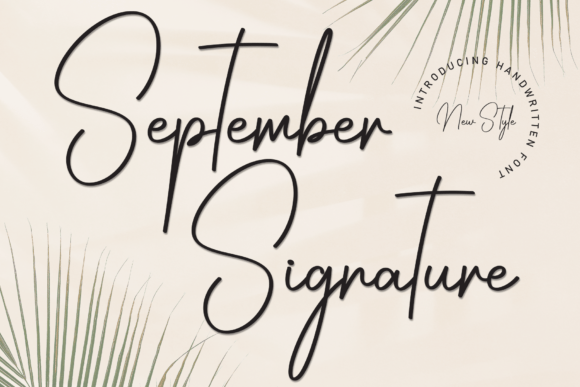
Introducing September Signature Font, the ultimate script font designed to captivate and inspire! Created by the talented andikastudio, this font is the epitome of elegance and style.
With its easy-to-read design and charming handwritten feel, September Signature is the perfect choice for a wide range of projects. Whether you're designing greeting cards, magazines, headers, social media posts, wedding invitations, labels, photography, watermarks, or stationery, this font will elevate your creations to new heights.
Imagine the impact this font will have on your audience. Each stroke exudes sophistication and professionalism, leaving a lasting impression on anyone who lays eyes on it.
September Signature Font is not just your ordinary script font. It's a masterpiece that brings a touch of class to any design. Its graceful curves and flawless letterforms create a sense of harmony and balance, making it the ideal choice for those seeking perfection.
But what truly sets September Signature apart is its versatility. It effortlessly adapts to any project, adding a touch of personality and character.
Are you tired of generic and overused fonts? With September Signature, you can break free from the ordinary and make a bold statement. Let your creativity soar as you explore the endless possibilities this font offers.
Don't settle for mediocrity when you can have excellence. September Signature Font is the secret ingredient that will take your designs from ordinary to extraordinary. It's time to make a statement and leave a lasting impression.